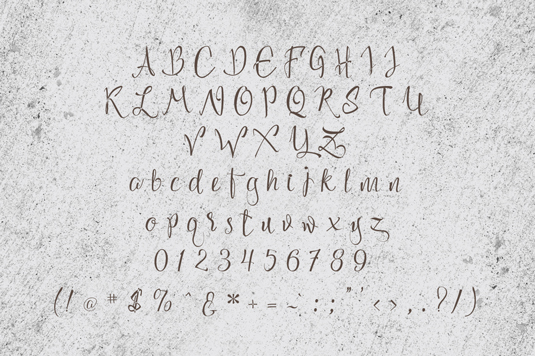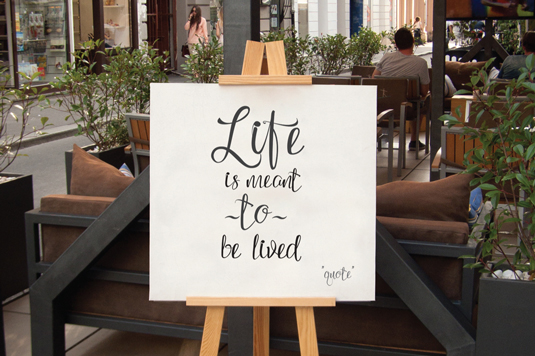
Font of the day: Loft Yian
Every day we showcase the best fonts on the web. Today it's Loft Yian from Font & Graphic Land.
Loft Yian from Font & Graphic Land
Today's typeface of choice is handwritten design Loft Yian, from the team at Font & Graphic Land. An elegant script font, Loft Yian is perfect for occasion invitations, logos and more.